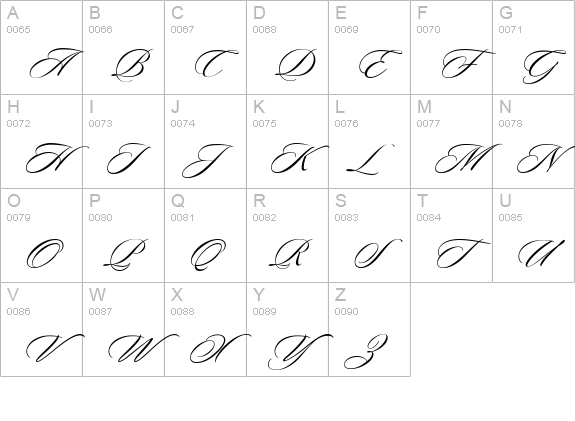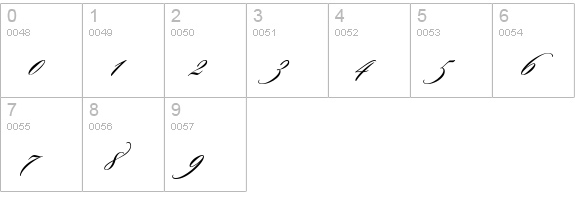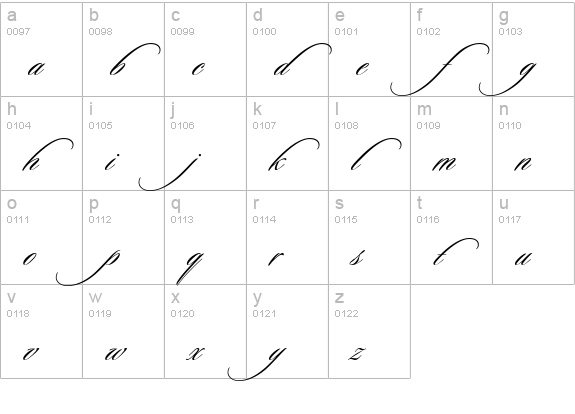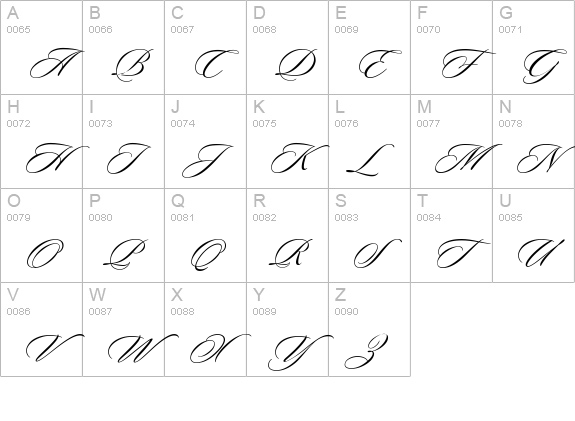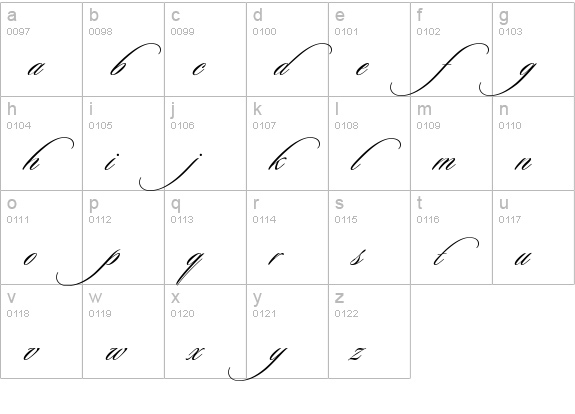
Sloop ScriptThree is a beautifully crafted font that exudes elegance and sophistication. Its flowing curves and delicate strokes make it perfect for adding a touch of refinement to any design project. The script style of this font gives it a timeless appeal, making it suitable for a wide range of applications, from wedding invitations to branding materials. What sets Sloop ScriptThree apart is not only its stunning design, but also the fact that it is available for free download at FontsMarket.com. This means that you can easily access this exquisite font without having to spend a dime. Whether you are a professional designer or a hobbyist, Sloop ScriptThree offers you the opportunity to elevate your creations to new heights. With its generous selection of characters, Sloop ScriptThree provides endless possibilities for customization. Its versatility allows you to experiment with different letter combinations, creating unique and personalized designs that are sure to captivate your audience. The smooth and fluid lines of this font create a sense of effortless grace, making it a standout choice for both print and digital projects. Sloop ScriptThree is a font that effortlessly blends classic charm with contemporary style. Its timeless appeal ensures that your designs will stand the test of time, while its free availability at FontsMarket.com makes it accessible to designers of all levels. Whether you are looking to create elegant wedding invitations or refined logos, Sloop ScriptThree is the perfect choice for adding a touch of sophistication to your designs.